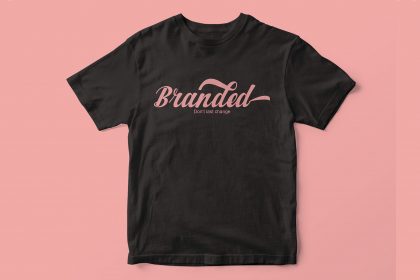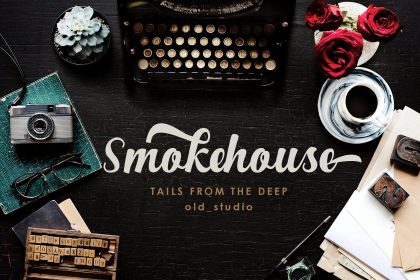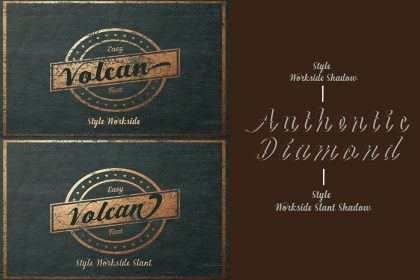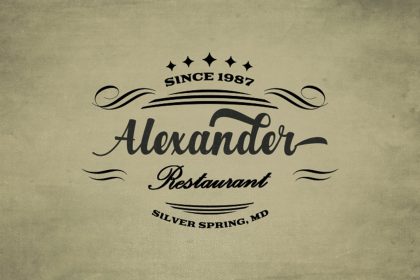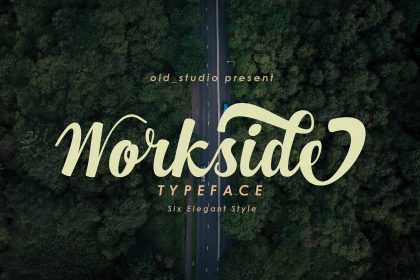
Workside Script Font
Hi designer. Introducing Workside Font. It is designed and shared by OldStudioo. Workside is a new and fresh font script that comes with a vintage and neat style. so this font can be used easily, even in mix and match with other fonts. so it can provide new alternatives and sensations for designers or craftsmen, in working on various projects. Workside Script is a modern take on classic gothic typeface. The typeface features two versions: Regular and Shadow. The 2 versions come in 2 different styles: Slant and Shadow Slant.